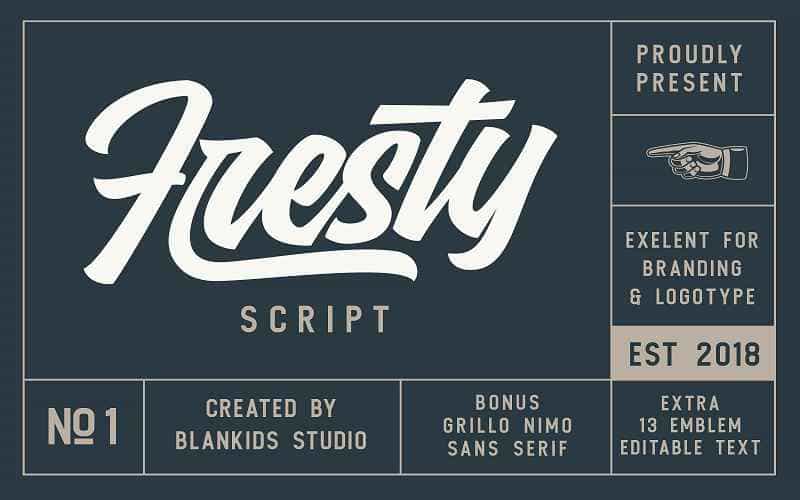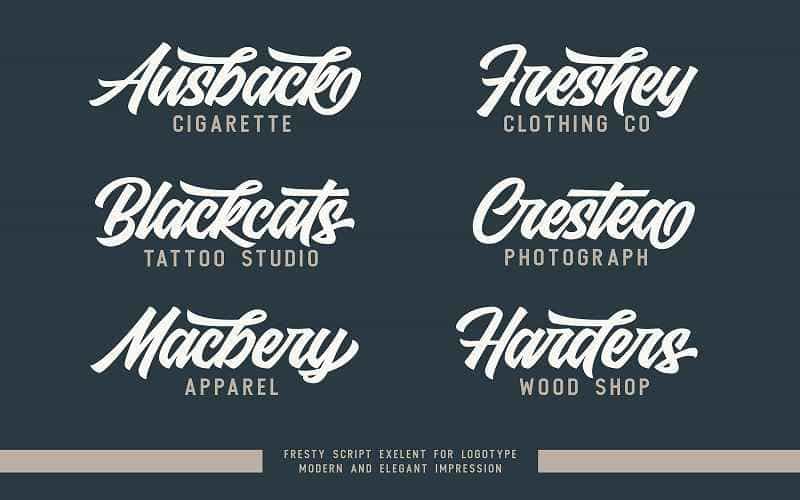
Blankids Studio proudly presents TWO FONTS in a font duo frestyscript & grillo nimo sans serif this is perfect for your personal branding and with two types of fonts will facilitate you to achieve the effect you want. Fresty is a great font for logotypes and branding, gives the feel of something trendy and modern.